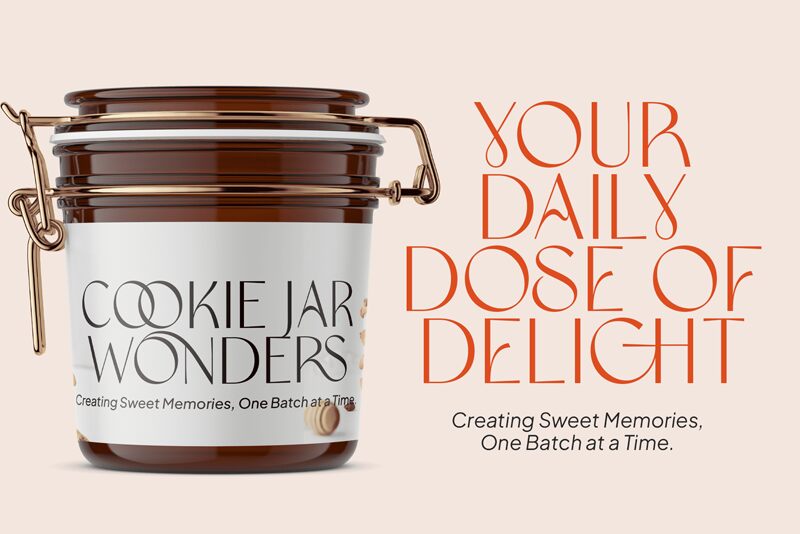
amoera Regular
Amoera, a captivating display font crafted by Vampstudio, exudes a captivating retro aesthetic. Its striking letterforms, with their bold, elegant curves and geometric precision, create a timeless and visually striking impression. The font's striking visual presence evokes a sense of vintage charm and sophisticated allure, making it a versatile choice for a wide range of design applications.
Amoera's distinctive character lends itself seamlessly to projects seeking to convey a sense of nostalgia, sophistication, or a touch of the unexpected. Its bold, attention-grabbing presence makes it an ideal selection for headlines, logos, and branding elements, where it can command attention and leave a lasting impression on the viewer.